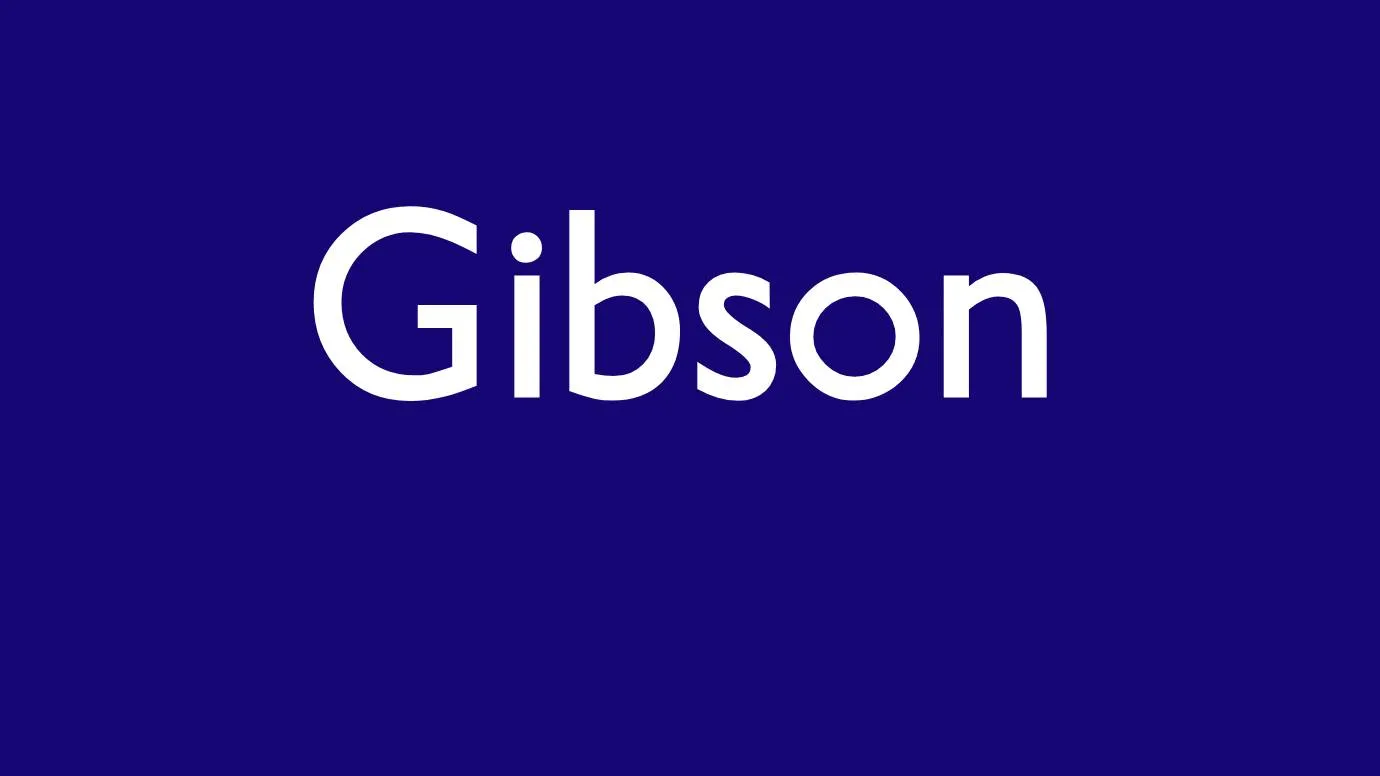
Gibson Font Family is a contemporary humanist sans serif typeface family, brought to life in 2011 by Rod McDonald, Patrick Griffin, and Kevin King.
Its design is available in four weights: regular, bold, light, and semibold (each accompanied by matching italics). This outstanding font stands as one of the top choices within the realm of graphic design.
NameGibson Font
DesignerRod McDonald, Patrick Griffin, Kevin King
StyleSans serif
Date Released2011